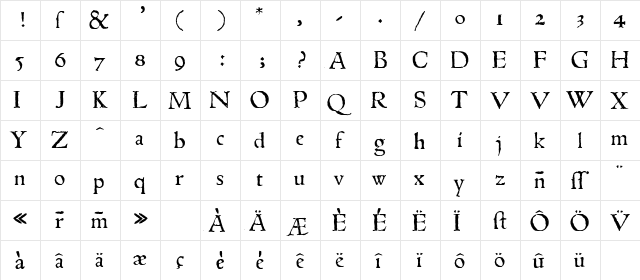
1543HumaneJenson Normal Font Preview
1543HumaneJenson Normal
1543HumaneJenson Normal Font Details
Design Context for 1543HumaneJenson Typeface
1543HumaneJenson takes a measured approach to typography — its balanced proportions and neutral character make it a reliable workhorse for both digital and print work.